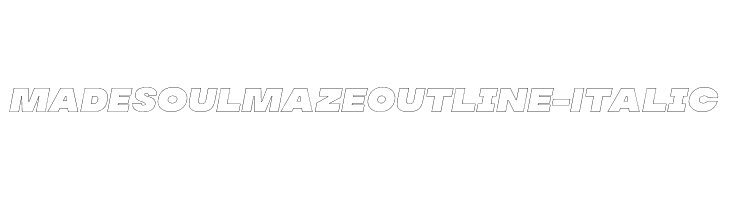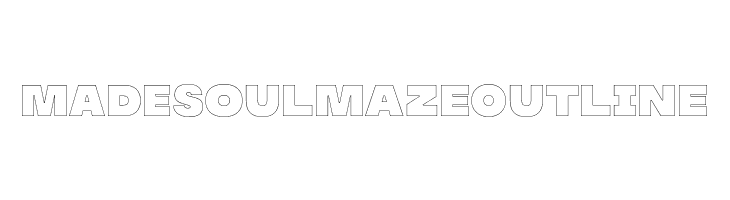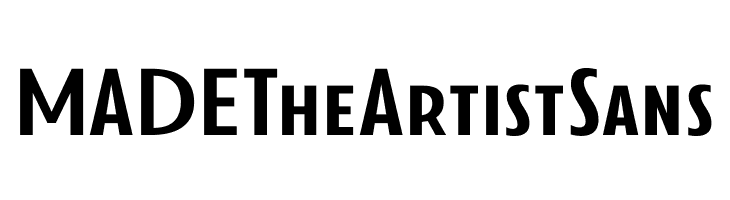
A bold, brush-style font with dynamic, hand-painted strokes.
A bold, geometric outline font with a modern and edgy style.
A bold, outlined italic font with a modern and dynamic style.
A bold, high-contrast serif font with a classic yet modern style.
A bold, modern sans-serif font with clean lines and a structured appearance.
An elegant and fluid script font with graceful curves and a natural handwriting style.
A modern, geometric sans-serif font with clean lines and uniform strokes.
A bold, modern sans-serif font with strong geometric shapes.
A bold, modern sans-serif font with clean lines and strong presence.
A bold, modern typeface with thick strokes and a strong presence.